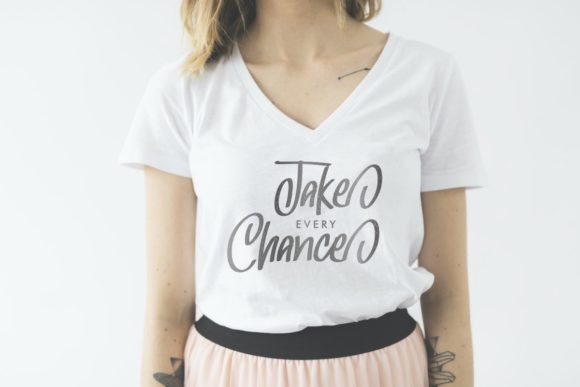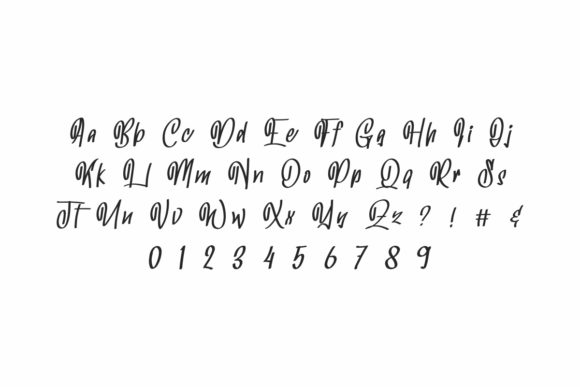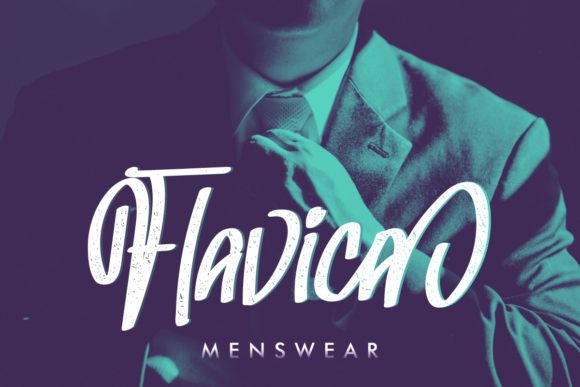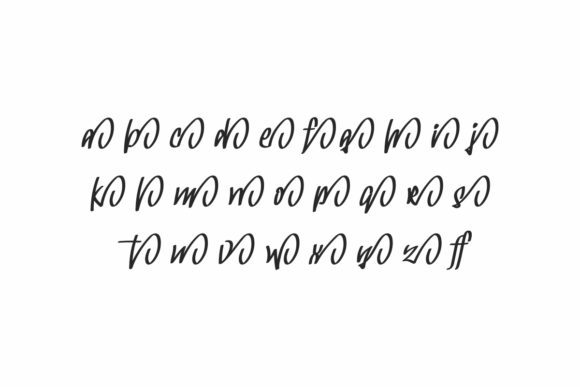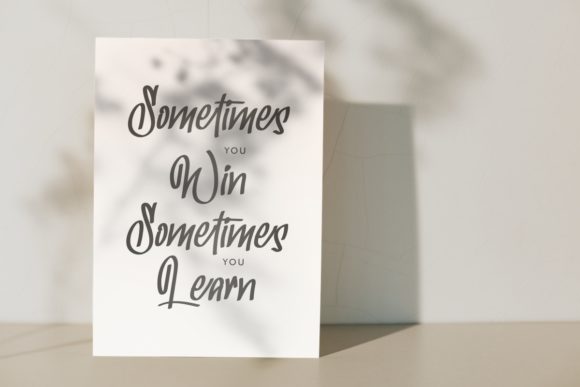
Introducing Buffalow Font: The Elegant Handwritten Font for Creative Projects
Are you tired of using the same old fonts for your creative projects? Look no further than Buffalow Font, a distinct and elegant handwritten font that’s sure to capture your heart. With its incredibly unique style, Buffalow Font is perfect for designers and crafters who want to add a touch of sophistication and whimsy to their work.
What Makes Buffalow Font So Special?
Buffalow Font is a one-of-a-kind handwritten font that’s been carefully crafted to bring a touch of elegance and charm to any project. Its unique style is characterized by flowing lines, delicate curves, and a subtle sense of movement, making it perfect for creating beautiful wedding invitations, stationary art, social media posts, and more.
Uses for Buffalow Font
The versatility of Buffalow Font is one of its most appealing features. Here are just a few ideas for how you can use this gorgeous font in your creative projects:
- Wedding Invitations: Create stunning wedding invitations that set the tone for a beautiful and elegant celebration. Buffalow Font is perfect for printing on high-quality paper or cardstock, and its delicate curves and lines will add a touch of romance to any design.
- Stationary Art: Add a personal touch to your stationary art with Buffalow Font. Use it to create beautiful greeting cards, thank-you notes, and other paper crafts that will make your friends and family feel special.
- Social Media Posts: Make your social media posts stand out with Buffalow Font. Use it to create eye-catching graphics, quotes, and other visual content that will grab the attention of your followers and leave a lasting impression.
- Branding and Packaging: Use Buffalow Font to create a unique and memorable brand identity for your business. Its elegant style is perfect for packaging, labels, and other marketing materials that require a touch of sophistication.
Why Designers and Crafters Love Buffalow Font
Designers and crafters love Buffalow Font for many reasons. Here are just a few:
- Unique Style: Buffalow Font has a truly unique style that’s unlike any other font on the market. Its flowing lines and delicate curves make it perfect for creating beautiful and elegant designs.
- High-Quality Design: Buffalow Font is a high-quality font that’s been carefully designed to ensure that it looks great in any size or resolution. Whether you’re creating a beautiful wedding invitation or a giant billboard, Buffalow Font will look stunning.
Tips for Using Buffalow Font
Here are a few tips for getting the most out of Buffalow Font:
- Pair it with Other Fonts: Buffalow Font looks great when paired with other fonts. Try pairing it with a bold sans-serif font for a striking contrast, or with a delicate script font for a more romantic look.
- Experiment with Colors: Buffalow Font looks great in a variety of colors. Try using it in bold and bright colors for a fun and playful look, or in more muted tones for a sophisticated and elegant design.
- Play with Size: Buffalow Font looks great in any size, from tiny and delicate to large and bold. Experiment with different sizes to find the one that works best for your project.
Buffalow Font is a truly unique and elegant handwritten font that’s perfect for designers and crafters who want to add a touch of sophistication and whimsy to their work. With its flowing lines, delicate curves, and subtle sense of movement, Buffalow Font is perfect for creating beautiful wedding invitations, stationary art, social media posts, and more. So why wait? Fall in love with Buffalow Font today and start creating stunning designs that will leave a lasting impression!